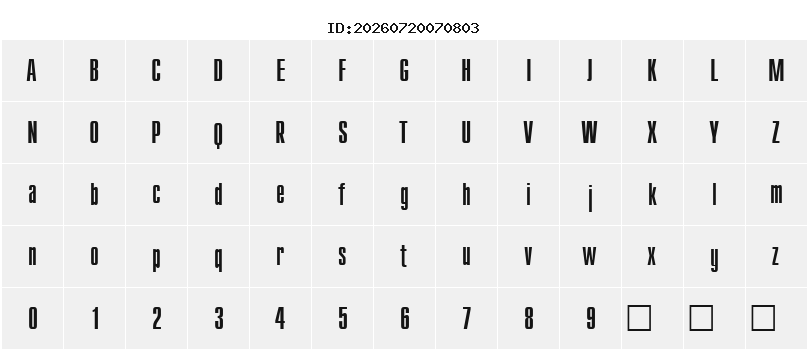
ft59 Preview
• Font Name: ft59
About ft59.ttf
ft59.ttf is a modern, elegant sans-serif font designed for ultimate readability and visual harmony. Perfect for branding, headlines, web design, and print materials.